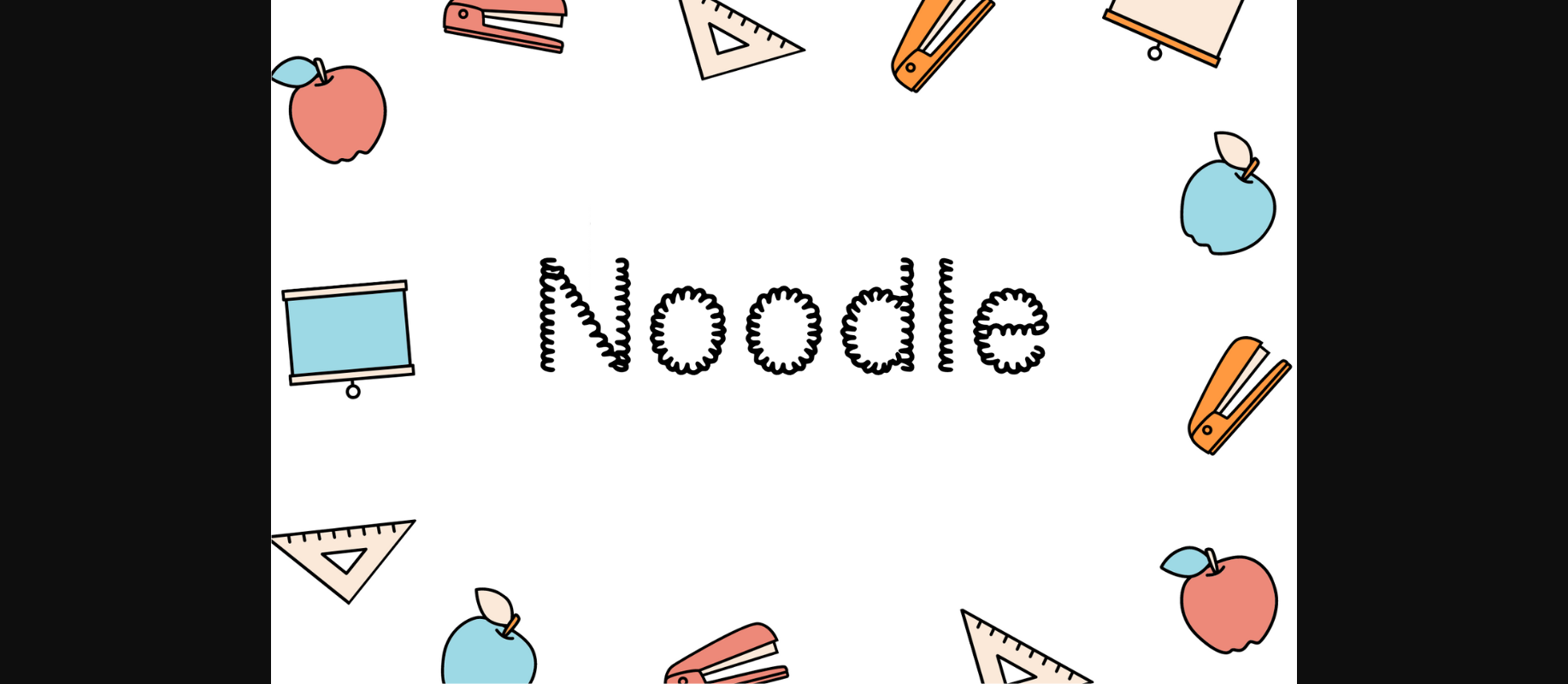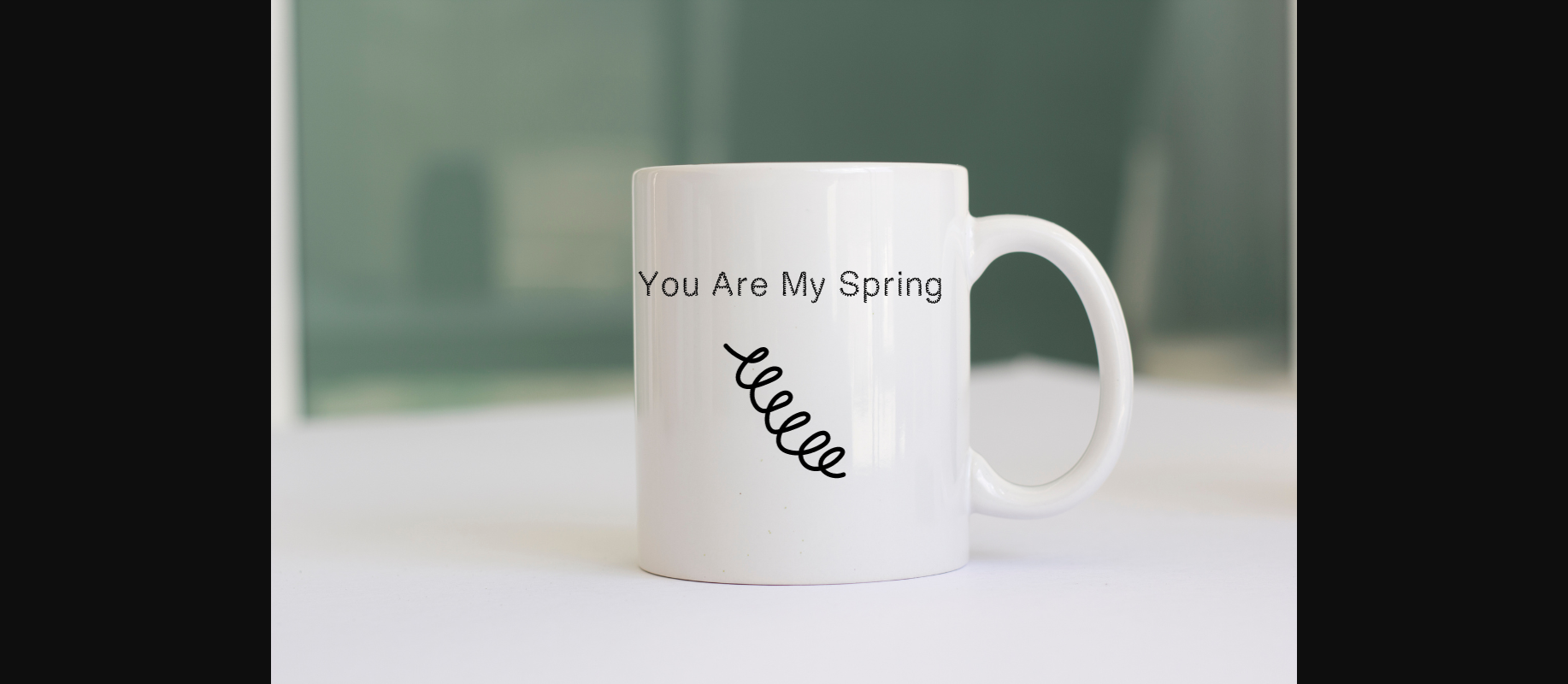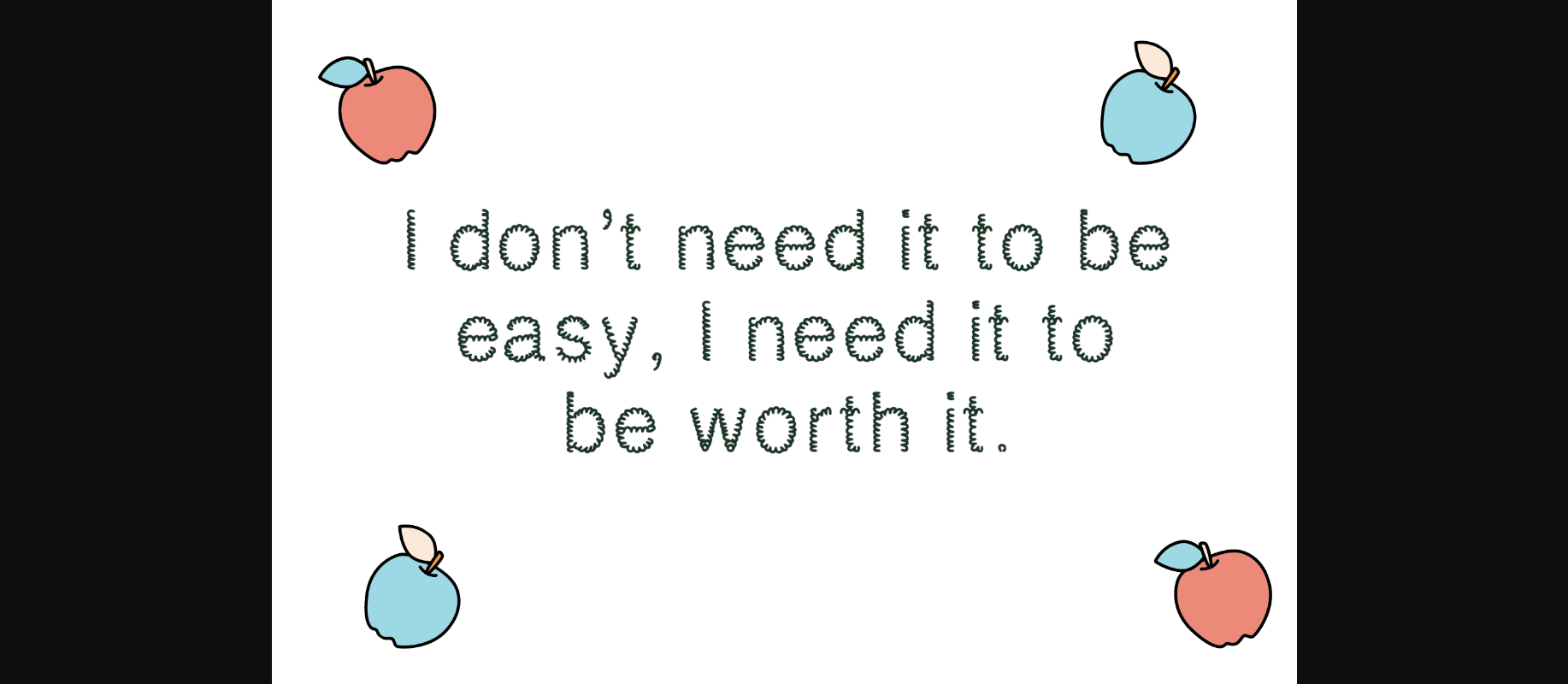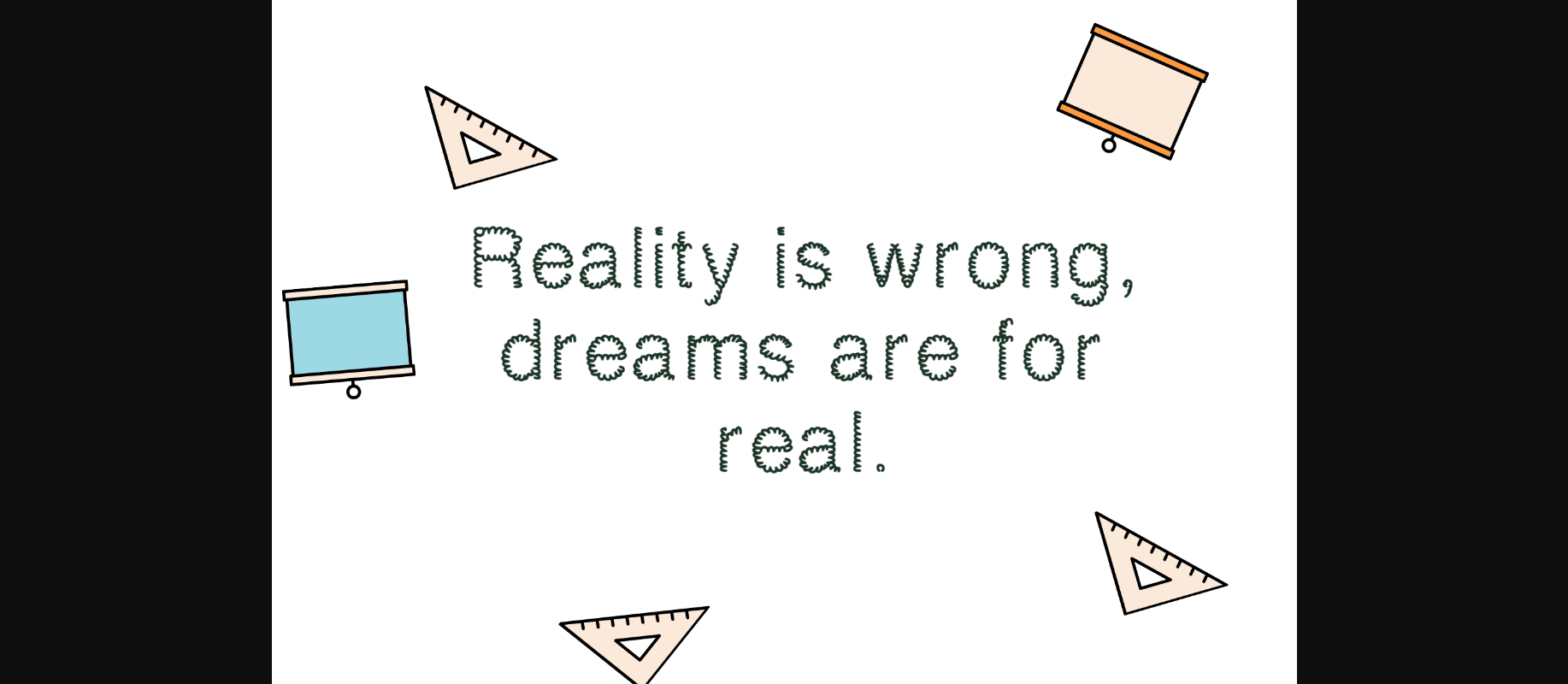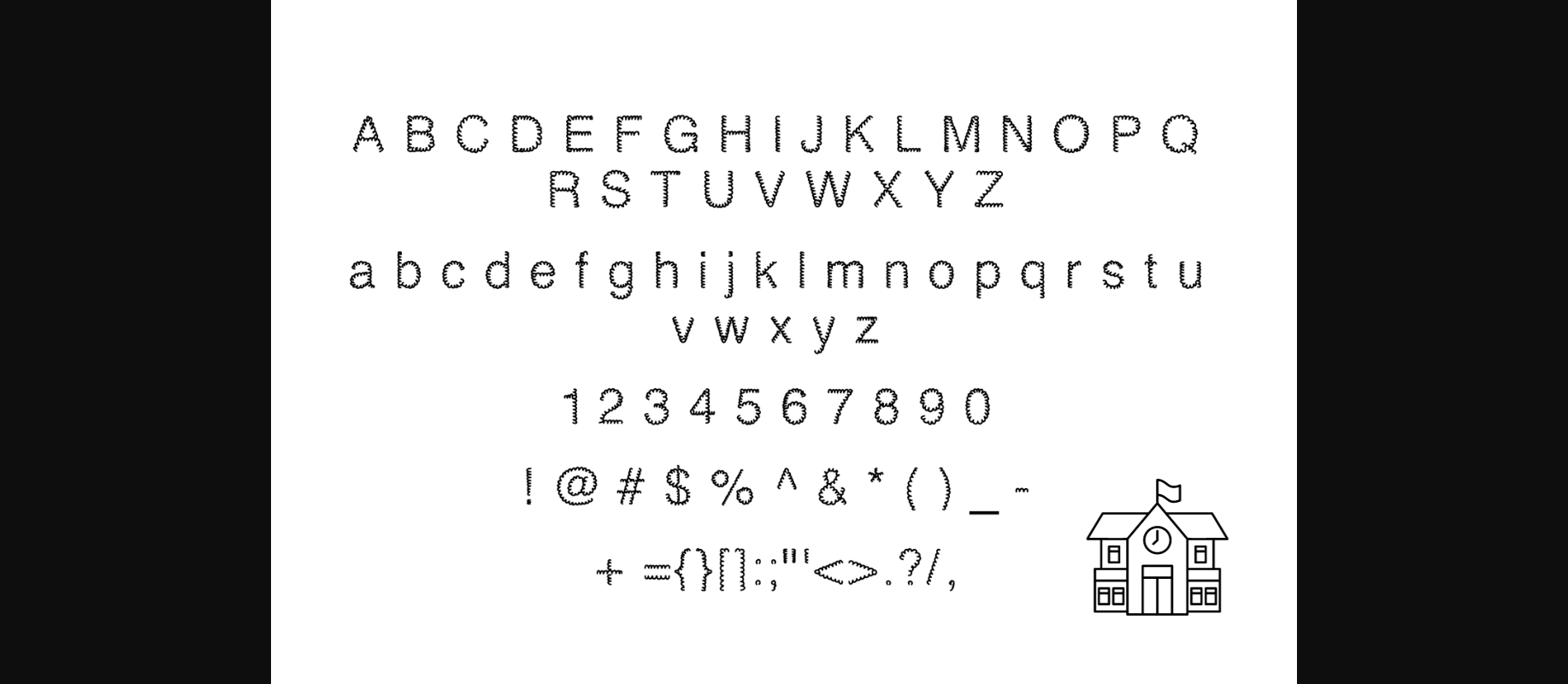
HomeDecorative FontsNoodle Font Decorative Fonts Noodle Font FacebookXPinterestWhatsApp 1 of 9 ... Noodle Font Poster 2... Noodle Font Poster 3... Noodle Font Poster 4... Noodle Font Poster 5... Noodle Font Poster 6... Noodle Font Poster 7... Noodle Font Poster 8... Noodle Font Poster 9... About Noodle Font Noodle is a curly decorative font. Featuring lightweight characters and a friendly appearance, this font is a wonderful addition to your font library! DOWNLOAD NOW People also explored Romantic Blossom Font Reviola Font Rockstar Font Migoove Font Love Font Converta Font Animal Font Sharp Font Briliant Classy Font 341 0 TagsNoodleNoodle Font Previous articleAriuna Monogram FontNext articleLuxury Elegent Font LEAVE A REPLY Cancel reply Comment: Please enter your comment! Name:* Please enter your name here Email:* You have entered an incorrect email address! Please enter your email address here Website: Save my name, email, and website in this browser for the next time I comment. Personal Use Free Planning Personal Use Free Read more about this font Neuropol Personal Use Free Read more about this font Dacquoise Personal Use Free Read more about this font BD RatterBit Personal Use Free Read more about this font BLOG Best Fonts for YouTube Videos: Make Your Thumbnails Stand Out Best Fonts for YouTube Videos: Make Your Thumbnails Stand Out Choosing the right font can make a massive difference in how your YouTube videos perform.... Top 7 Google Fonts Alternatives for Faster and Privacy-Friendly Web Design (2025) To increase your work productivity, choose the most readable fonts. Top 10 Handwritten Fonts That Elevate Your Designs